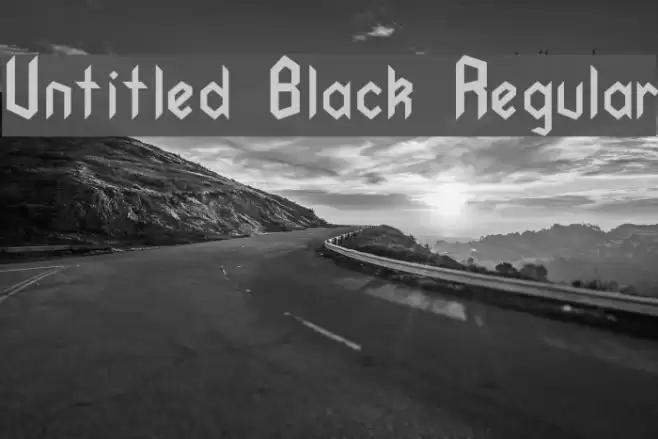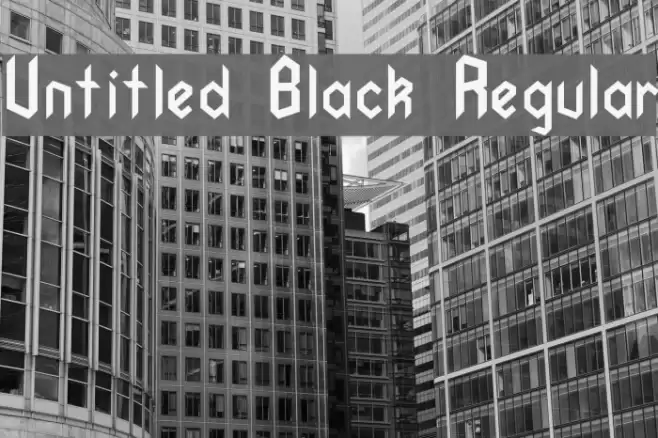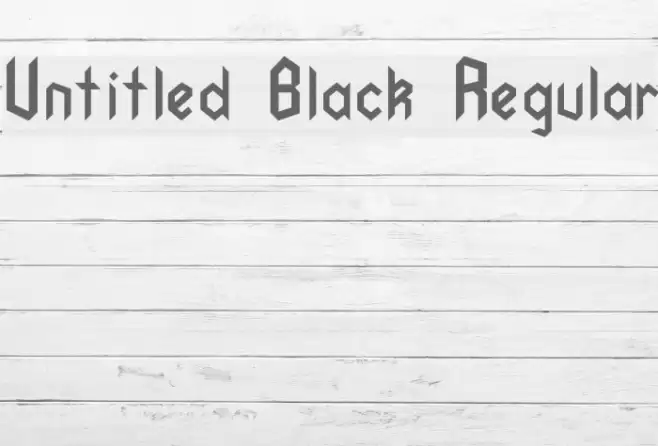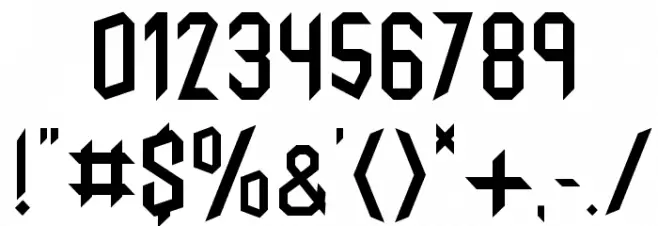
Untitled Black Regular Font
Untitled Black Regular Description
This font features a bold and angular design, characterized by sharp edges and geometric shapes. The uppercase letters are particularly striking, with a blocky and futuristic appearance that suggests a sense of strength and modernity. The lowercase letters maintain this angular style, providing a cohesive look across both cases. Numbers and special characters follow the same design principles, ensuring consistency throughout. The font's unique style makes it stand out, with a distinctive presence that is both eye-catching and memorable. Its boldness and geometric nature make it suitable for projects that require a strong visual impact.
A bold, angular font with a geometric and futuristic style from Uncategorized fonts.